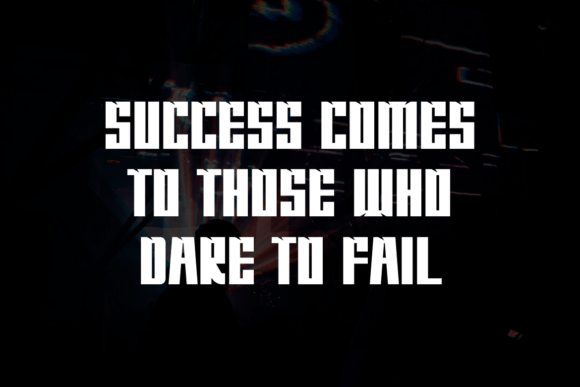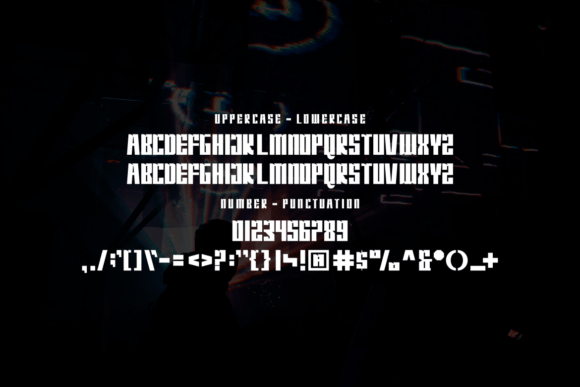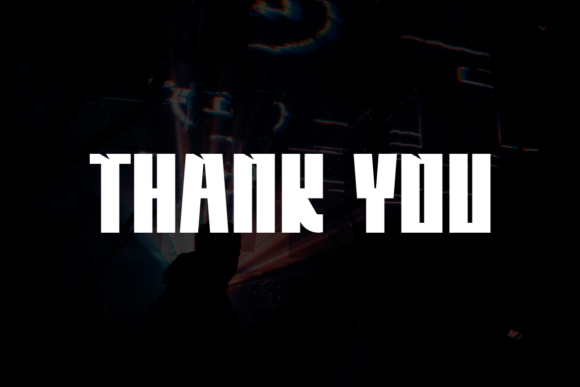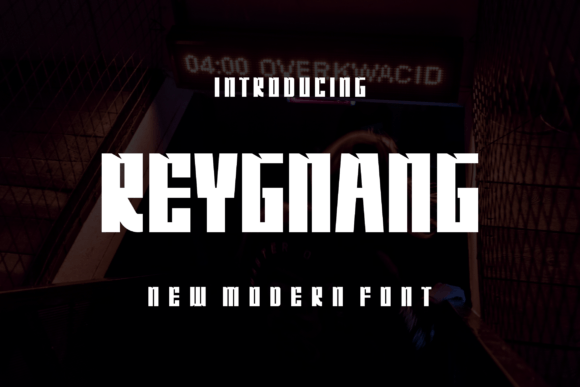
Introduction to Reygnang Font
Presenting our new product Reygnang Font – Modern Font is a bold and authentic display font.
This font is perfect for any branding project such as logos, t-shirt printing, creative products, and more extraordinary in a variety of contexts.
Key Features of Reygnang Font